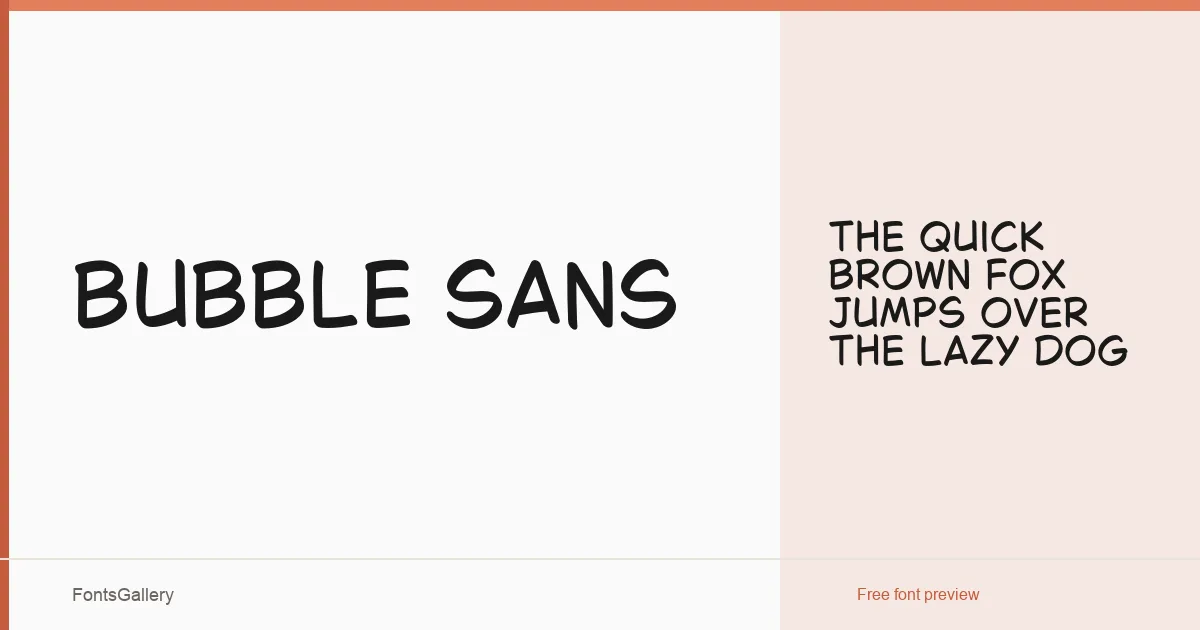
About Bubble Sans Font
Bubble Sans is a playful, bold handwritten typeface designed by Abay Emes and published by QR Type. It brings a whimsical, energetic personality to any project, making it an eye-catching choice for creative work. Its expressive character and bubbly aesthetic give it a warm, approachable feel that stands out across a wide range of applications.
The letterforms in Bubble Sans are rooted in a handwritten style with rounded, bold strokes that feel full of life and movement. The whimsical quality of the design is reflected in its soft, inflated shapes that balance playfulness with strong visual weight. Each character carries a cheerful personality that makes the typeface instantly engaging and fun to read.
Bubble Sans is ideally suited for posters, branding, social media graphics, t-shirt designs, and children's books, where a bold and playful tone is desired. Its strong presence makes it especially effective as a display or headline typeface in youth-oriented or casual creative projects. For a dynamic contrast, Bubble Sans pairs beautifully with Aresink or the clean neutrality of Helvetica.